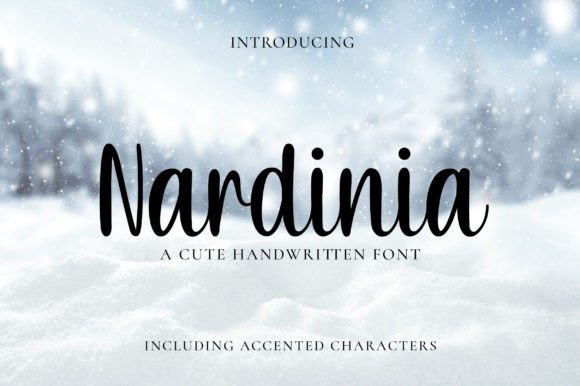
Enter the enchanting world of Nardinia, a script font that will transport you to a realm of elegance and charm. Crafted by the skilled hands of OB Design, this versatile font is your passport to a world of creative possibilities. With its delicate strokes and flowing curves, Nardinia will add a touch of romance and sophistication to your next project, leaving an unforgettable impression on your audience.
Unleash your creativity and let Nardinia take you on a journey through heartfelt greeting cards, captivating headlines, and awe-inspiring travel brochures. Its wide spectrum of applications makes it the perfect companion for any design endeavor, adding a personal touch that speaks volumes.
Picture your words dancing across the page, imbued with the grace and elegance of Nardinia. Your travel brochure will become a visual masterpiece, transporting readers to faraway lands and evoking emotions that linger long after the journey's end. Let Nardinia guide you as you craft headlines that command attention, leaving an indelible mark on your readers' minds.
Nardinia is more than just a font; it's an experience that awakens the senses and captures the imagination. Its versatility extends beyond the digital realm, allowing you to bring your creative visions to life in the physical world. Envision your words adorning personalized mugs, stylish t-shirts, or eye-catching posters, each one a testament to your unique style and creativity.
Join the countless designers, creatives, and visionaries who have succumbed to the allure of Nardinia. Let it ignite your passion and inspire you to create something truly extraordinary. With Nardinia as your creative companion, the possibilities are endless. Embark on this journey of self-expression and discover the boundless potential that awaits you.